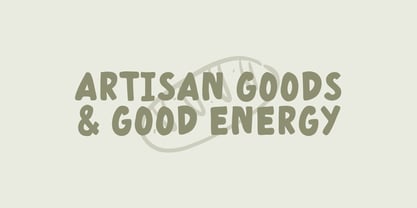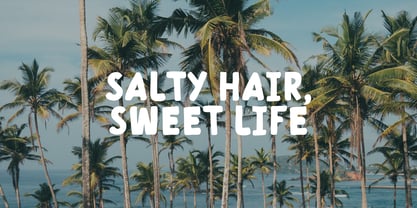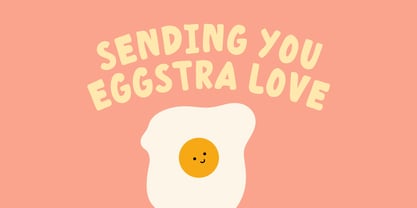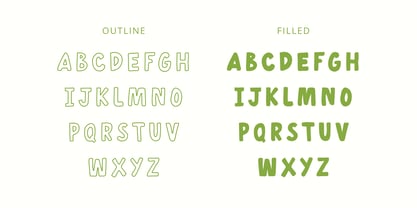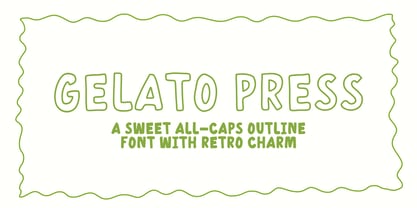
Gelato Press
Gelato Press is a chunky, soft-edged handwritten font that feels like it was stamped from dough or pressed into paper by hand. The letters are bouncy, a little uneven, and full of charm—like signs on an ice cream cart or notes from someone who doodles while they think. It’s playful without trying too hard and keeps its handmade feel in every curve.